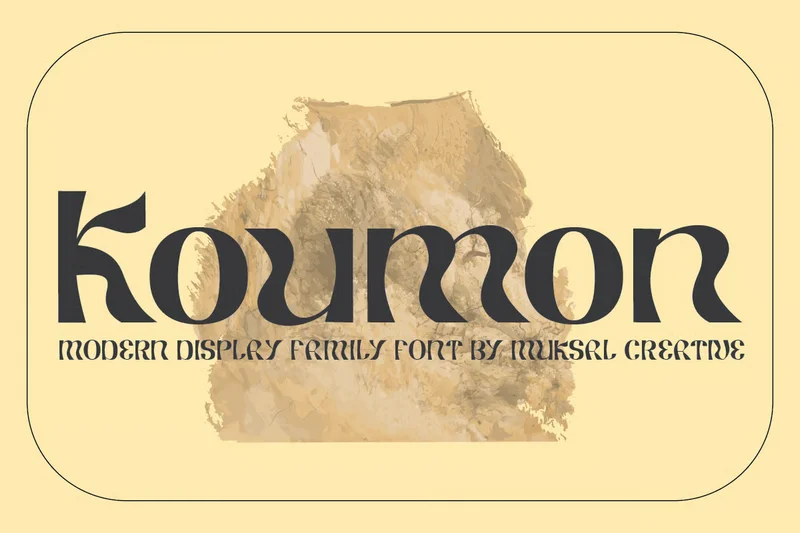
Kuomon – Versatile Display Font Family
Kuomon is a bold display font family that spans from thin to black weights, designed to capture attention with its strong presence. With modern shapes and visual versatility, it suits a wide range of applications from magazine covers to branding. Its clear structure and stylistic alternates make it an excellent choice for projects that demand both character and clarity.